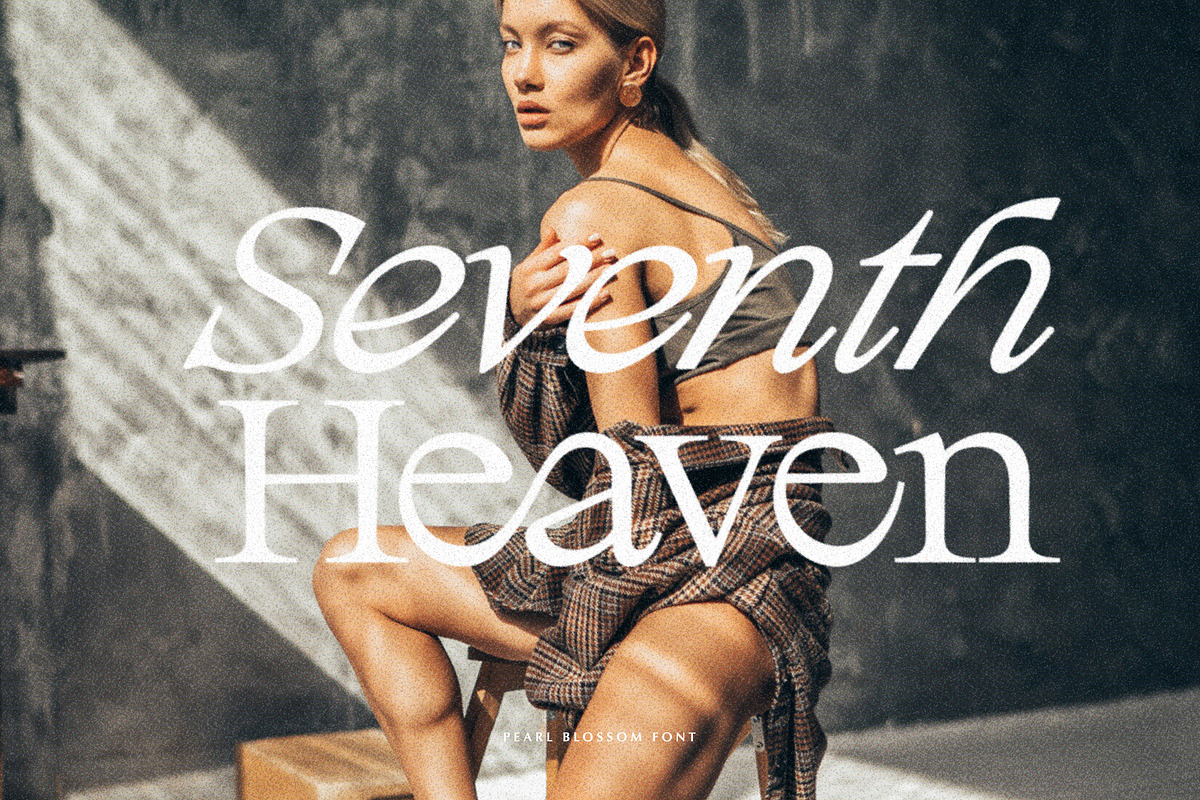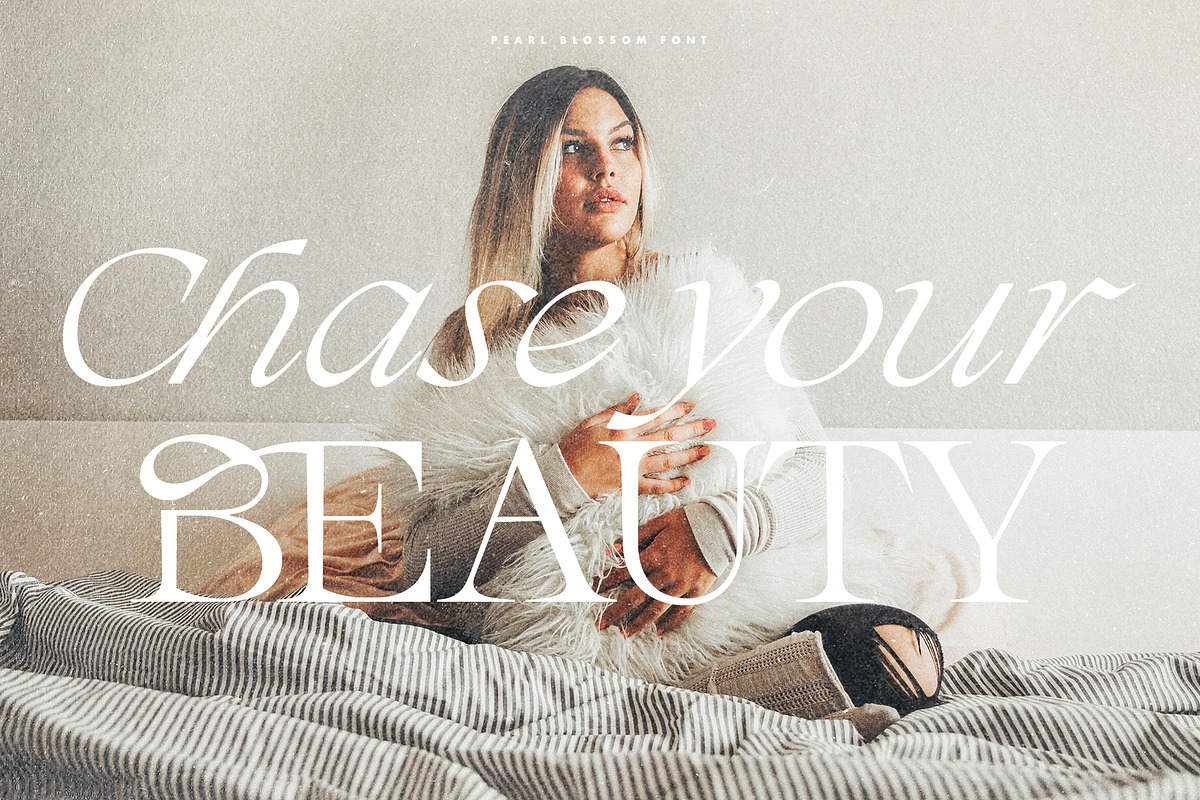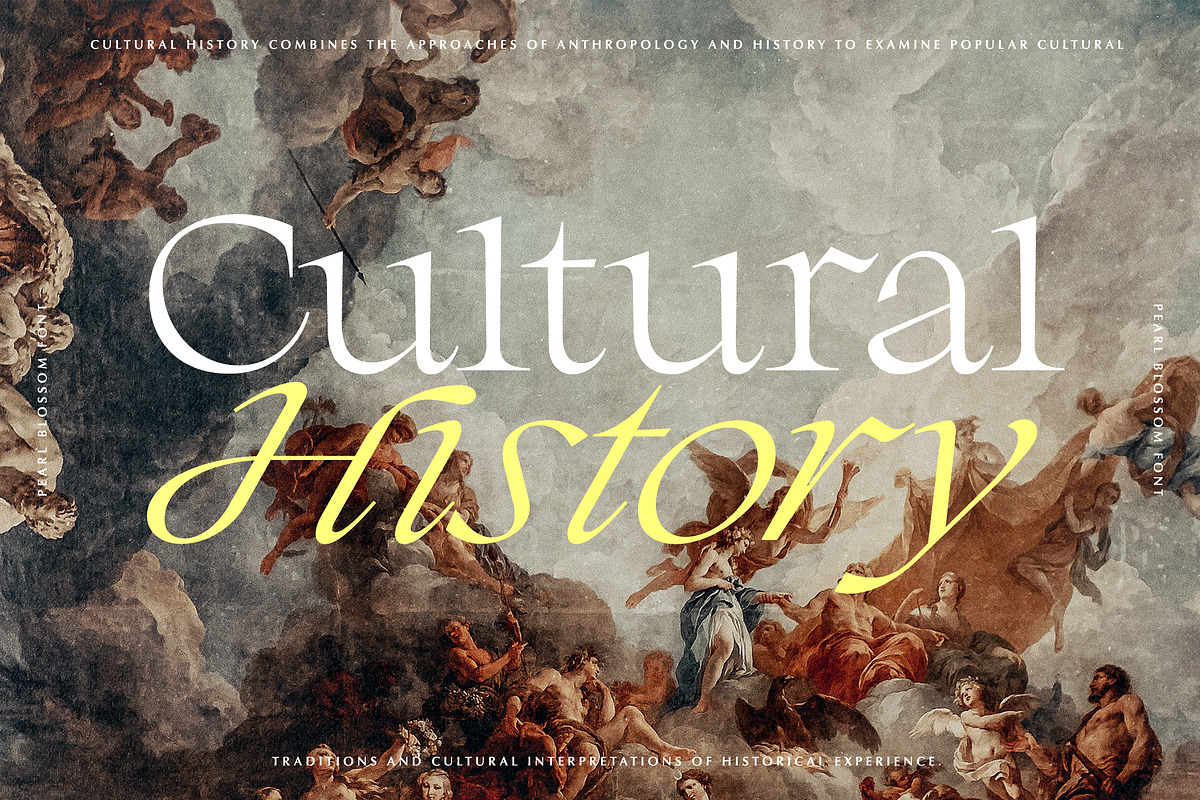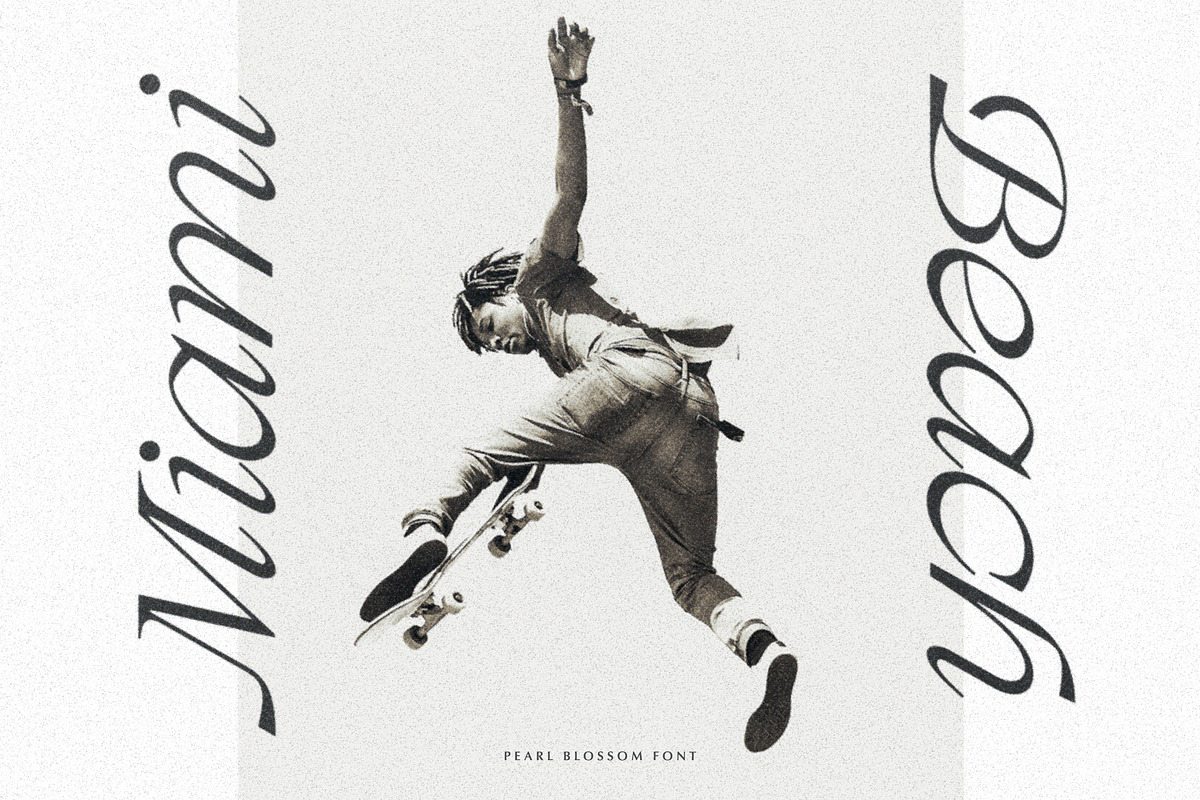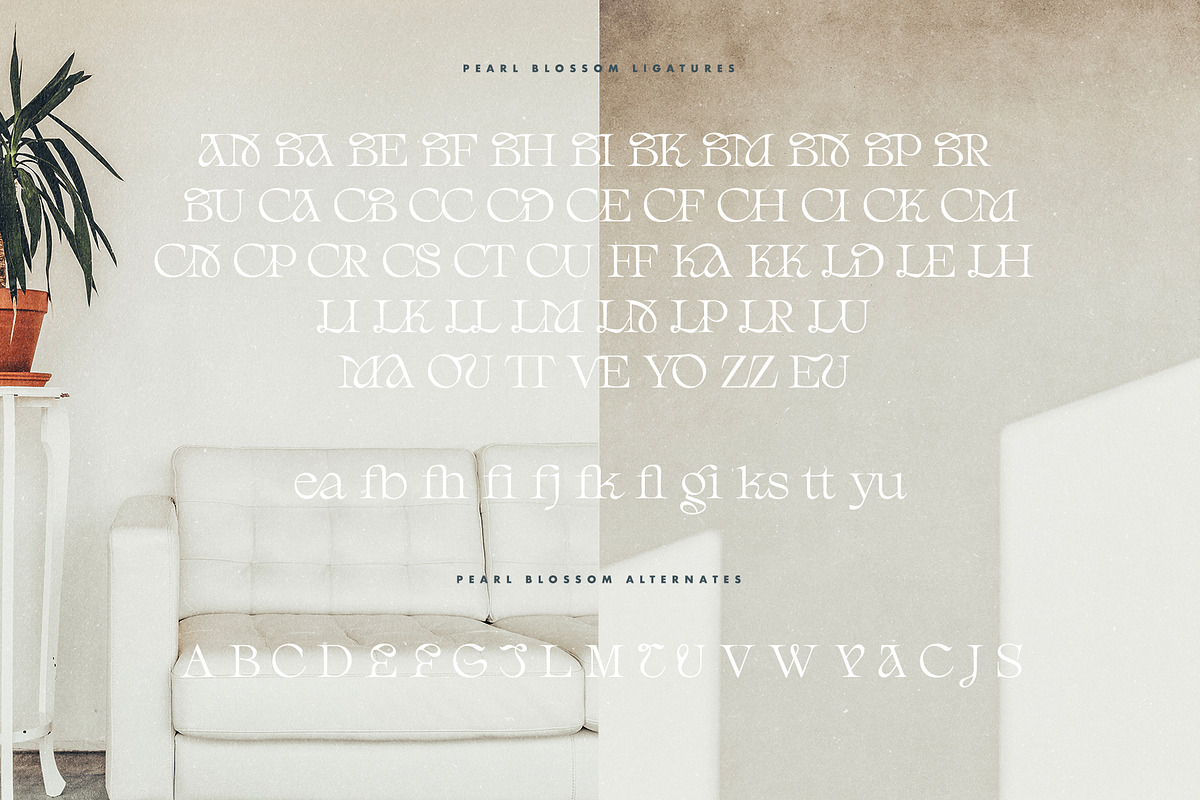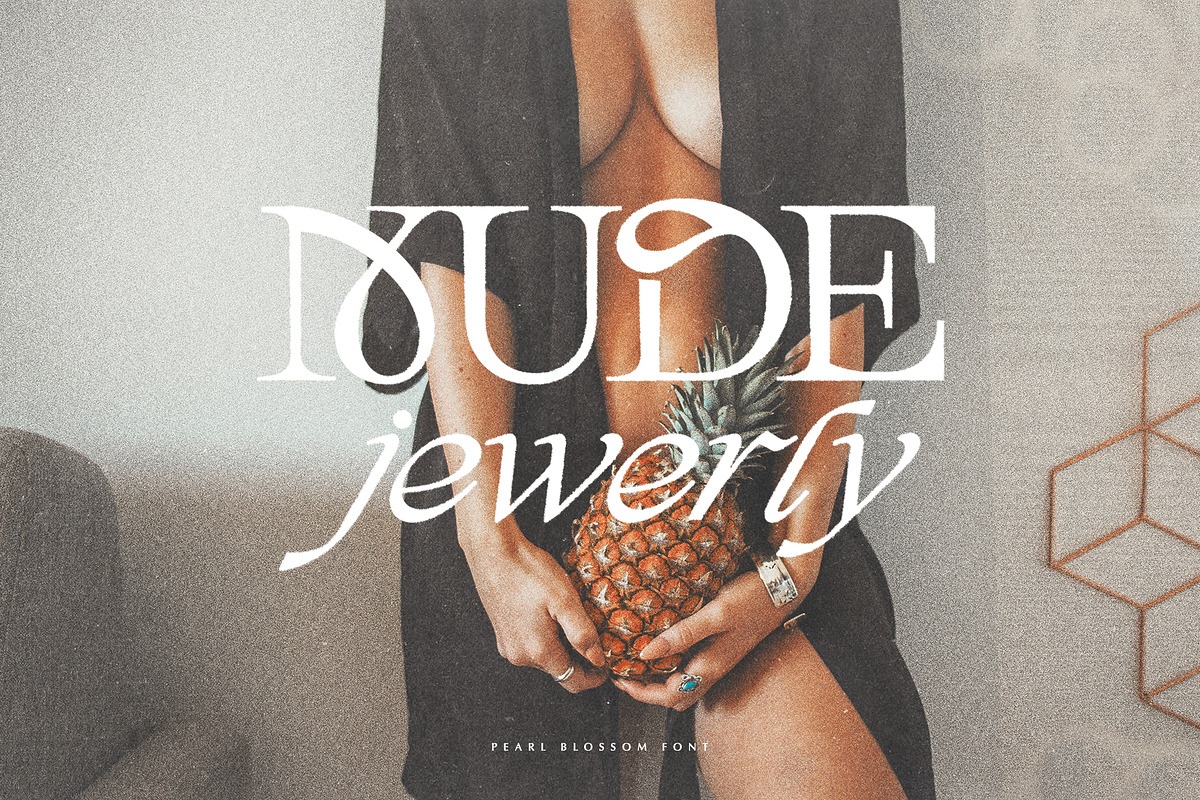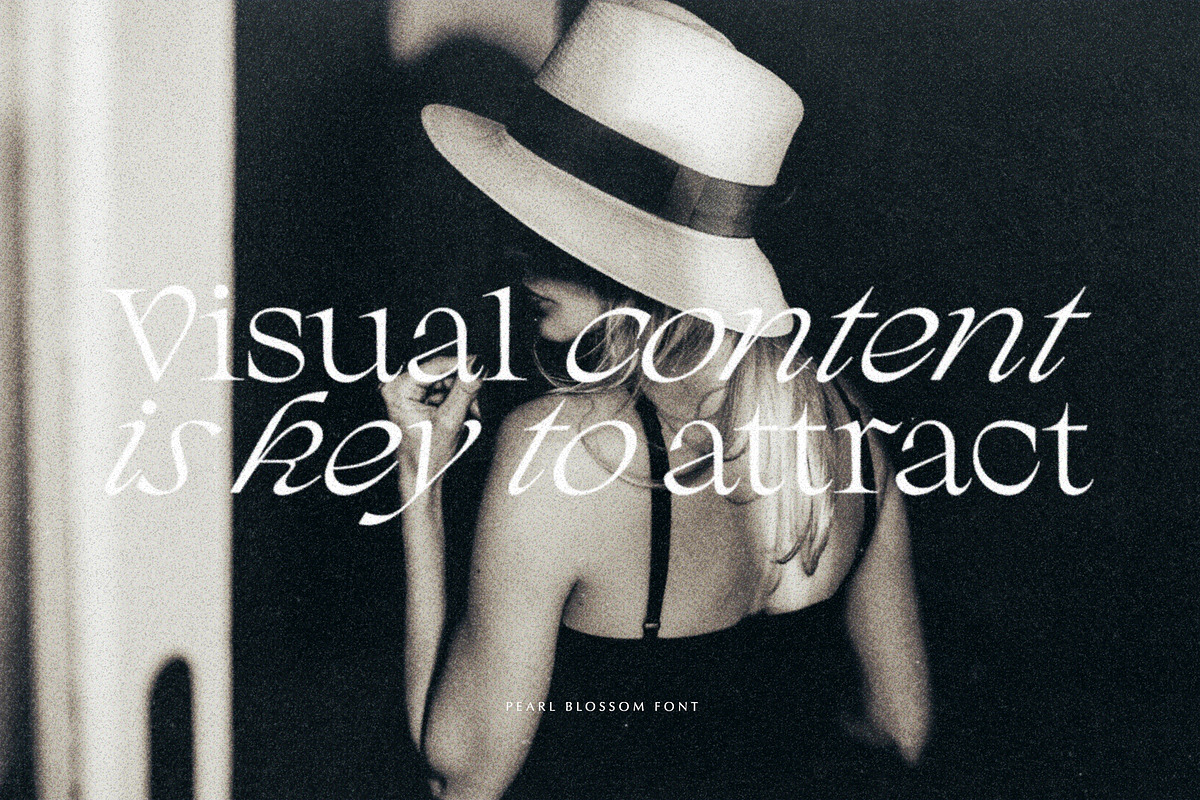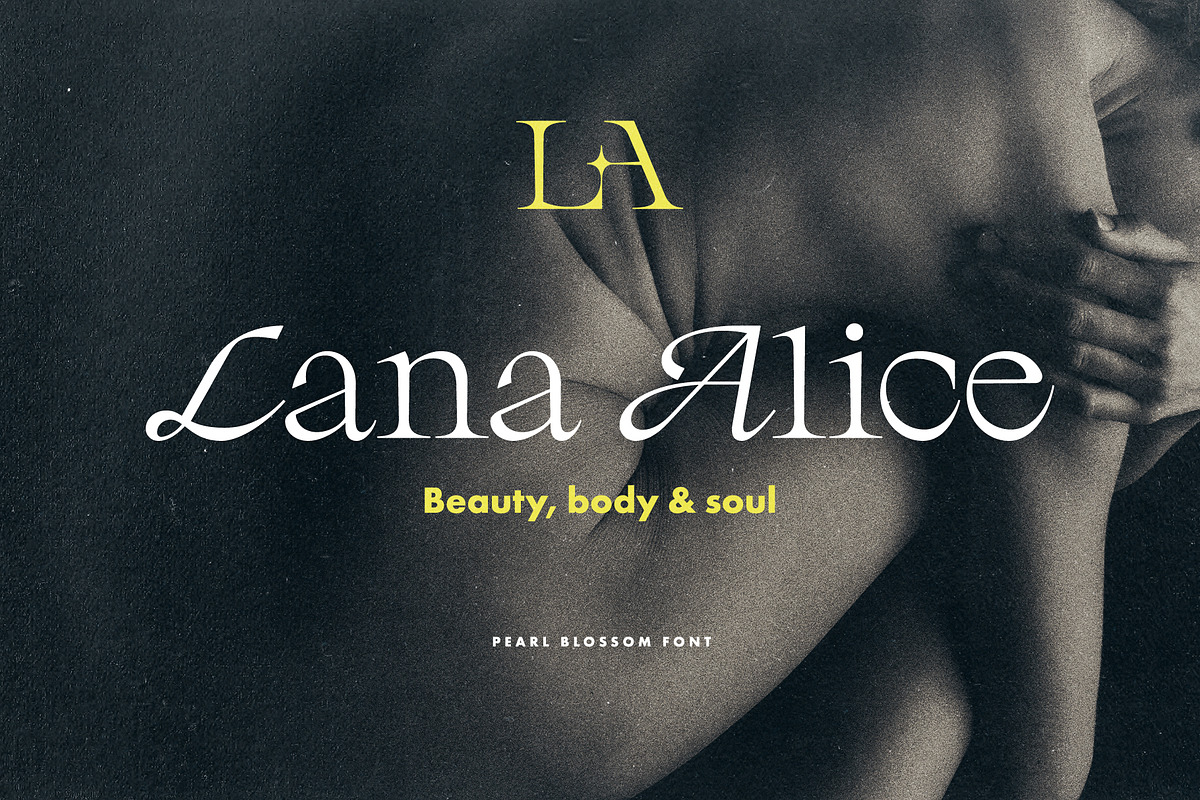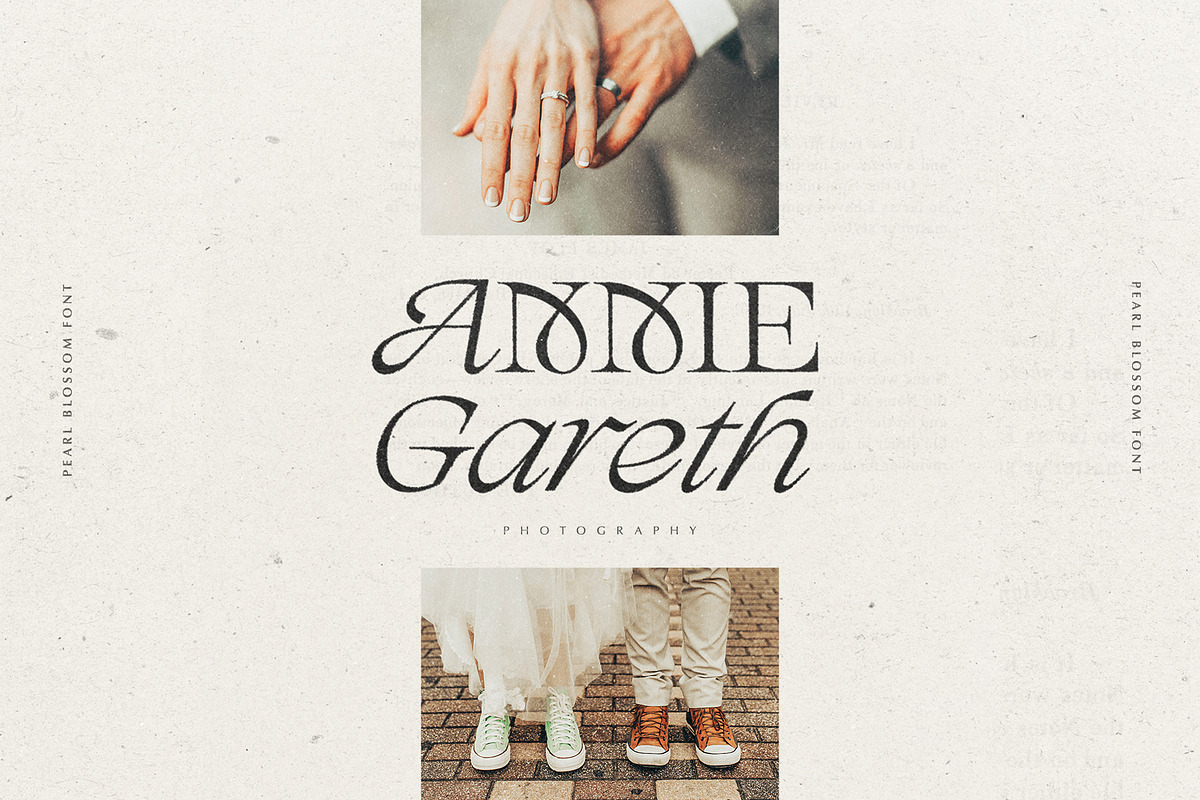
Pearl Blossom - Modern Serif
Introducing Pearl Blossom. An elegant serif typeface with a calligraphic italic version. Both fonts comes in REGULAR and BOLD versions. Pearl Blossom brings modern and clean look to headings, logos, websites, social media, brand identity, paper stationery and more.
Pearl Blossom regular has 61 Ligatures and 19 Alternates.